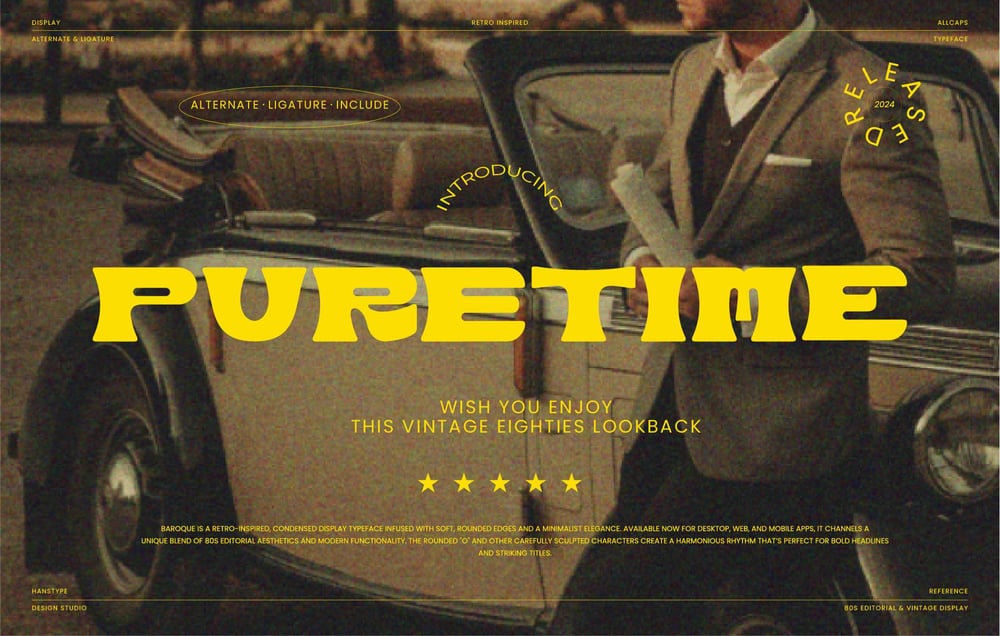
Puretime Font Family was designed by published by Hanstype. Puretime contains 1 styles and family package options. Puretime is a bold serif font with a unique vintage-retro appeal. It combines classic serif shapes with a touch of timeless nostalgia, creating an elegant and sturdy impression. Designed for strong visual impact, Puretime is perfect for headlines, posters, and brands that require a modern, classic touch.The font offers unique character shapes and elegant lines, making it ideal for a variety of applications such as eye-catching headlines, editorial designs, and luxury brands. Puretime also offers the flexibility to be used on both digital and print platforms. With the right combination, this font can be paired with other fonts to create interesting contrasts.